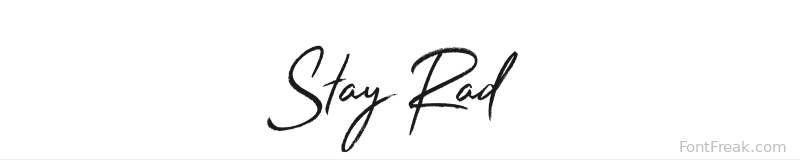
Stay Rad
About Stay Rad
The Stay Rad font by BLKBK Fonts is a captivating script typeface that exudes a playful yet elegant charm. With its fluid strokes and natural flow, this font captures the essence of handwritten typography, making it perfect for a variety of creative projects. The visual characteristics of Stay Rad include a medium stroke weight with slight variations that create an organic feel. The letters are well-spaced, enhancing legibility while maintaining a casual vibe. The distinctive swashes and loops add a touch of whimsy, making it visually engaging and inviting.
Stay Rad is particularly well-suited for use in creative contexts such as wedding invitations, where its graceful lines can evoke a sense of romance. It also shines in branding for boutique shops and artisan markets, providing a personal and welcoming touch to logos and packaging. The font is ideal for social media graphics, allowing content creators to add a stylish flair to their posts. Additionally, it can be effectively utilized in event posters, capturing attention with its lively character and artistic appeal.
What truly sets the Stay Rad font apart is its unique blend of elegance and playfulness, making it an excellent choice for any design that seeks to convey a sense of creativity and warmth. With its engaging style and approachable aesthetic, the Stay Rad font free download is a must-have for anyone looking to elevate their design projects with an authentic handwritten touch.